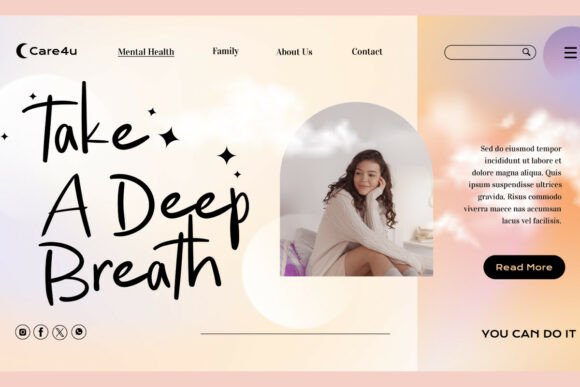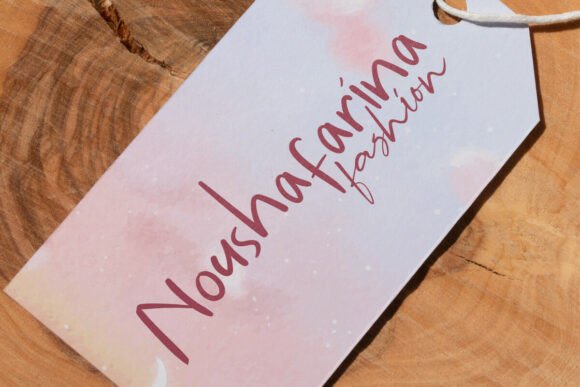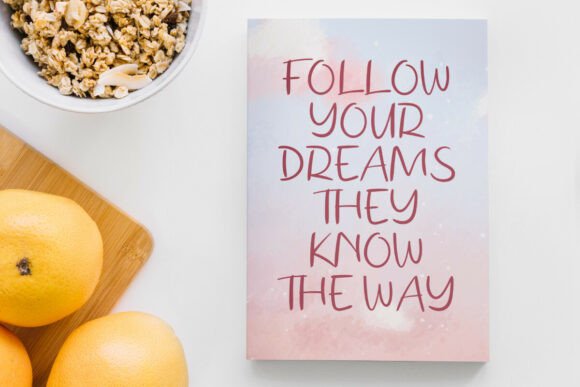
Introduction to Mengejar Mimpi Font
As designers, we’ve all been there – staring at a blank canvas, trying to bring a vision to life. For many, it’s the spark of inspiration that sets the creative wheels turning. Maybe it’s a beautiful sunset, a heartfelt message from a loved one, or the thrill of a new project that gets those juices flowing. Whatever the trigger, the end result is often a piece that’s not just visually stunning, but also deeply personal.
That’s where the Mengejar Mimpi Font comes in – a charming, organic handwritten font that captures the warmth of a personal touch. With its fluid, natural strokes and relaxed rhythm, this font is perfect for adding a human element to your digital designs, from social media graphics to digital journals.
Unlocking the Potential of Mengejar Mimpi Font
As a valuable design resource, the Mengejar Mimpi Font is ideal for high-quality creative projects that demand a high level of authenticity and transparency. Whether you’re working on a free download or a paid design, this font shines when paired with soft pastel colors and hand-drawn illustrations, making it a go-to choice for greeting cards, scrapbooking, and any design that aims to feel deeply connected to the dreamer’s spirit.
Mengejar Mimpi Font
- High-quality design: Mengejar Mimpi Font is a beautifully crafted font perfect for any creative project requiring a unique touch.
- High-resolution design: The font is designed at a high resolution, making it ideal for use in large-scale designs, such as billboards or posters.
- Unique characteristics: The font’s unique design elements, including its custom letterforms and ligatures, make it an excellent choice for designers looking to add a creative touch to their projects.
Honest Review: Mengejar Mimpi Font
As a designer, I’m always on the lookout for high-quality fonts that can elevate my creative projects. Recently, I stumbled upon the Mengejar Mimpi Font, and I must say it’s been a game-changer. ✨
- Unique and stylish design that adds a touch of elegance to any project
- Perfect for creative projects that require a high level of sophistication
However, I did encounter a few limitations with the Mengejar Mimpi Font. ⚠️
- Some characters may not be as legible as others, especially in smaller font sizes
- The font may not be suitable for projects that require a lot of bold or italic text
Overall, I’m thoroughly impressed with the Mengejar Mimpi Font. It’s a fantastic addition to any designer’s toolkit, and I would highly recommend it to anyone looking for a high-quality, free font to elevate their creative projects.
Mengejar Mimpi Font
Mengejar Mimpi Font is a high-quality design resource perfect for any creative project. With its unique style and transparent background, this font is sure to add a touch of elegance to your work.
Tips for Getting the Most Out of Mengejar Mimpi Font
To get the most out of Mengejar Mimpi Font, be sure to use it in combination with other design elements, such as images and graphics. This will help to create a visually appealing and professional-looking design.
Mengejar Mimpi Font is perfect for a variety of design projects, including:
- Graphic design and branding